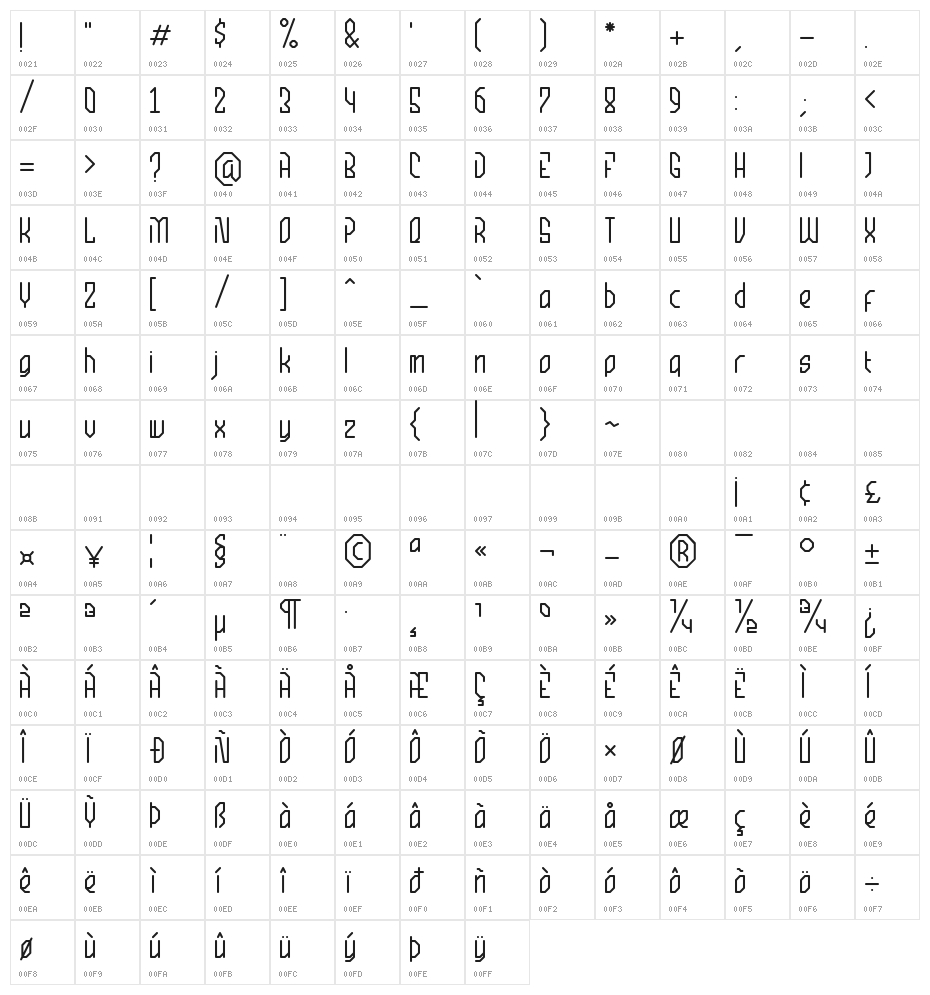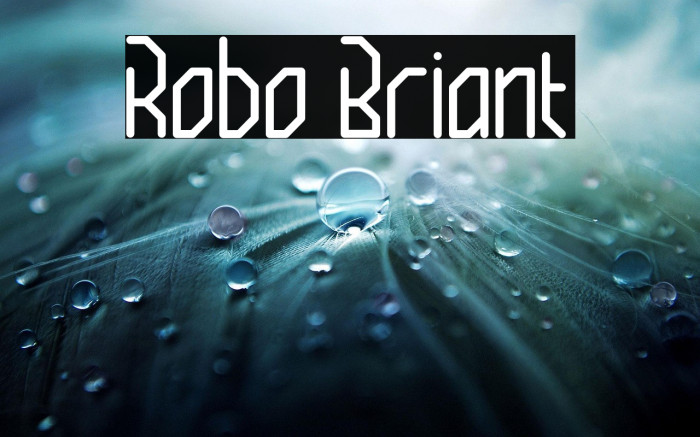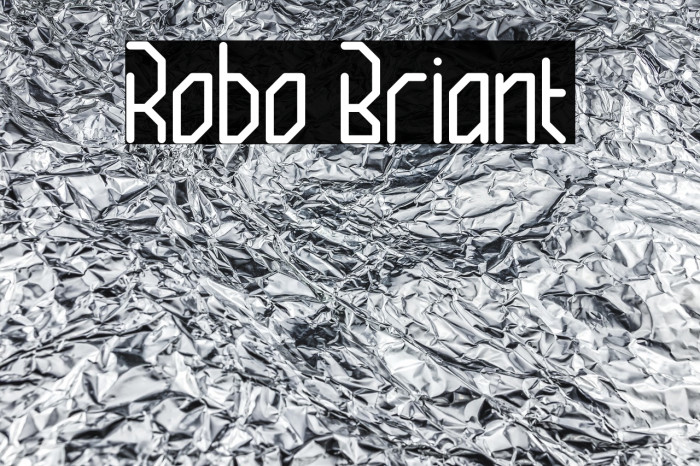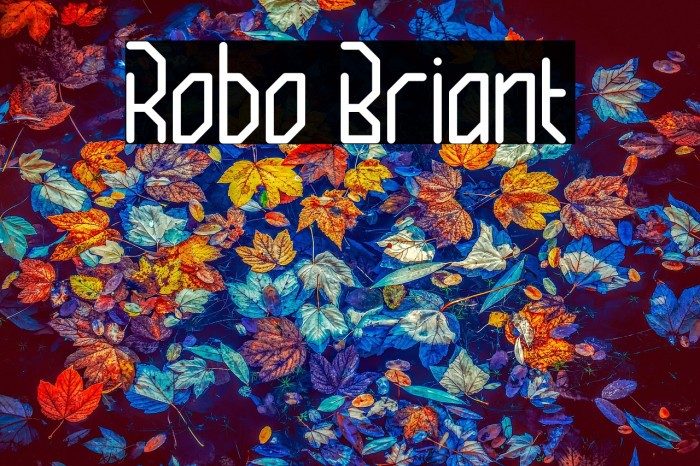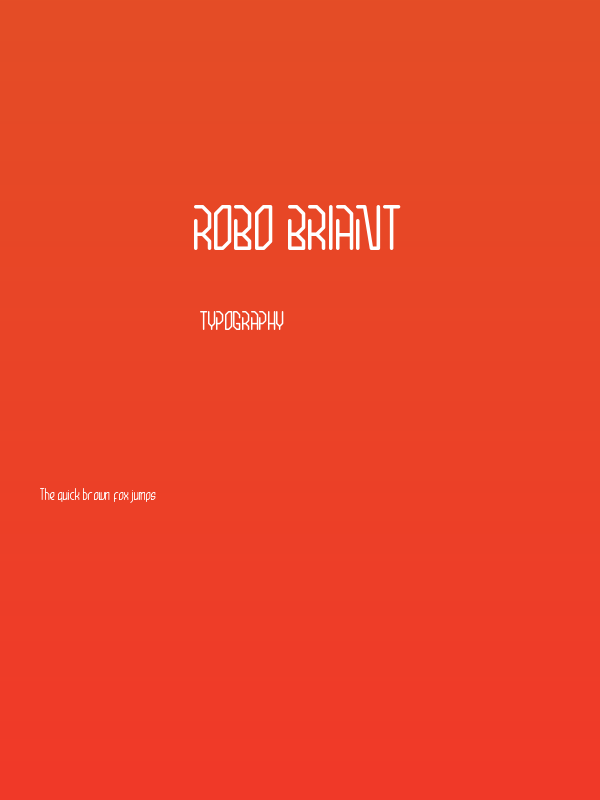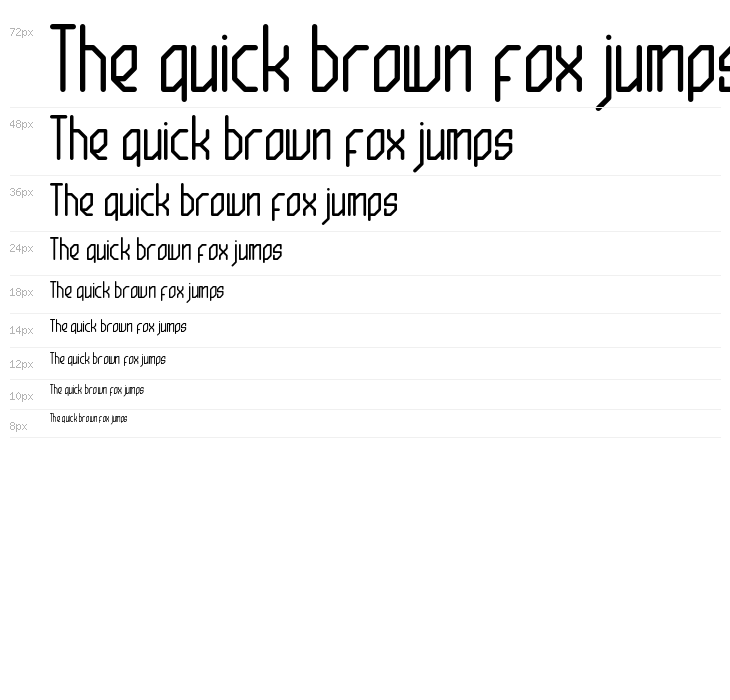
Robo Briant Font
Robo Briant Description
This font features a futuristic and geometric design, characterized by its angular and structured letterforms. The uppercase and lowercase letters maintain a consistent height, creating a uniform appearance. The strokes are uniform in thickness, contributing to a clean and modern aesthetic. The numerals and special characters follow the same design principles, ensuring a cohesive look across all glyphs. The font's unique style is reminiscent of digital or robotic themes, making it suitable for projects that require a contemporary and tech-savvy feel.